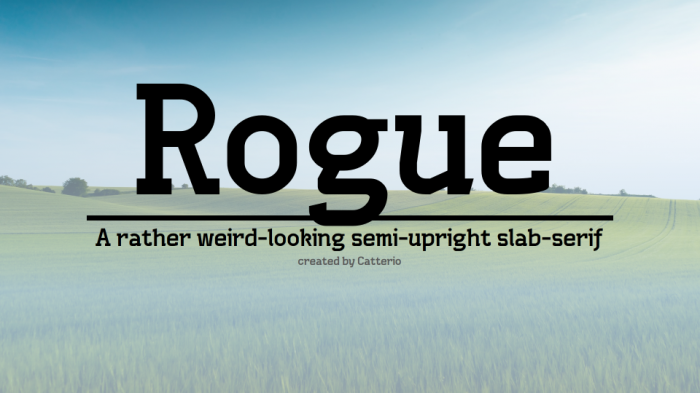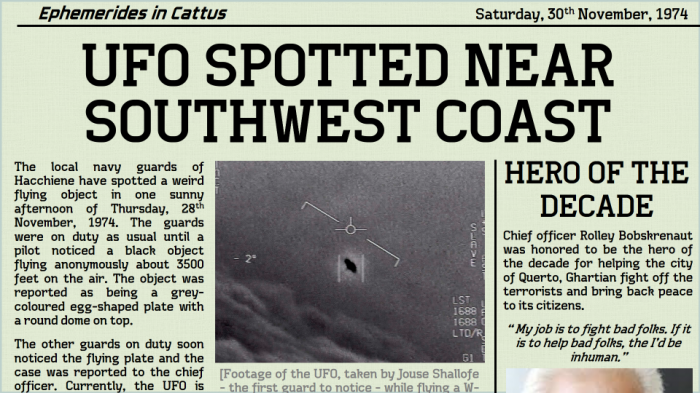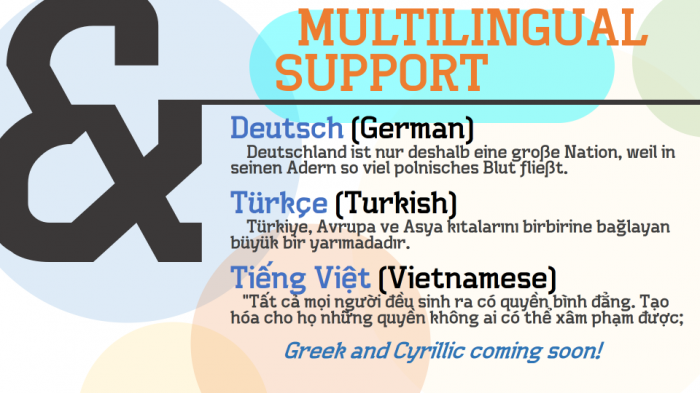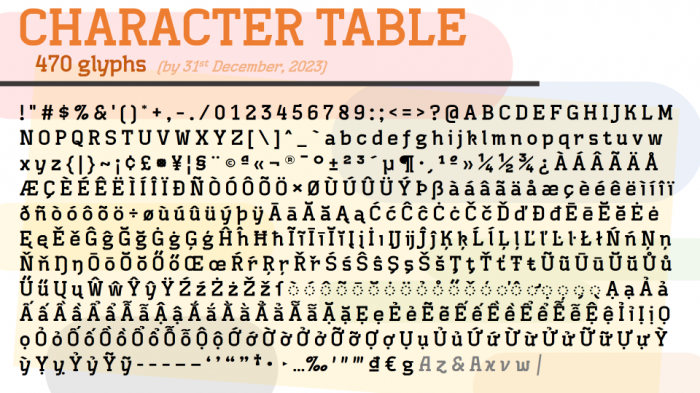
• Rogue is a semi-upright slab-serif font. My first ever project to use ×2 Brick size filter.
This originally started out as an attempt to recreate Anonoma Less Characters. But then, things took a turn and Rogue was born.
The reason I made the font "Semi-upright" was because bold upright serifs (at least to me) tend to look cool and stylish. Though, I still wanted to keep the sense of roman serif in the font. So the a, g and u are roman. The style of v, w, x, y, z in most italic serifs look too obscure and grotesque for my design, so those are all roman with y being the only exception. Basically, a mix between upright and roman.
I have plans to expand the project into supporting Greek and Cyrillic as well as provide alternative glyphs for the font.